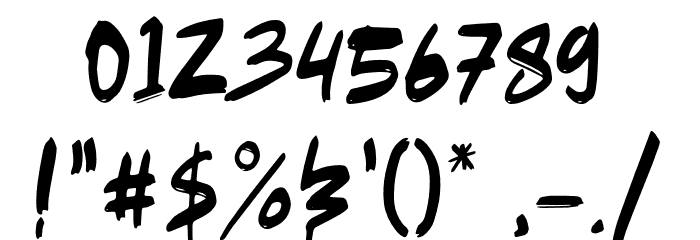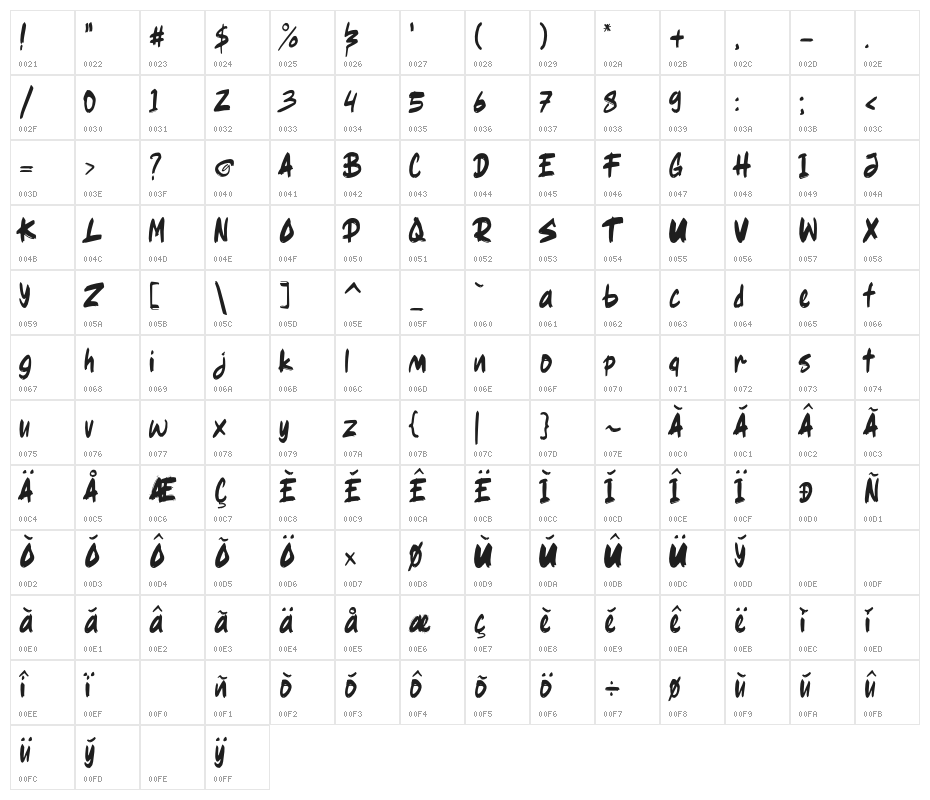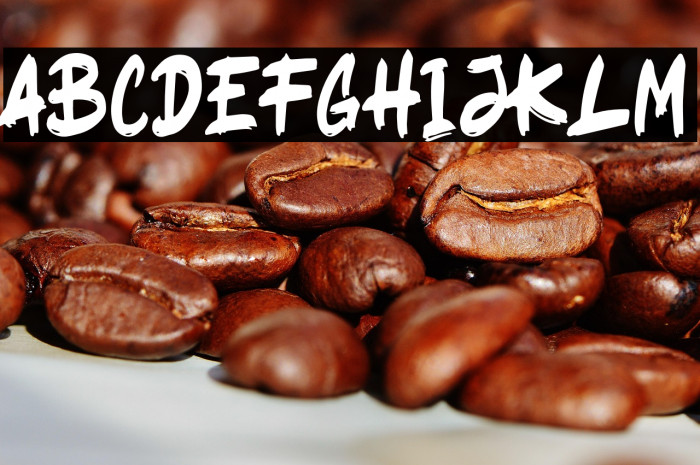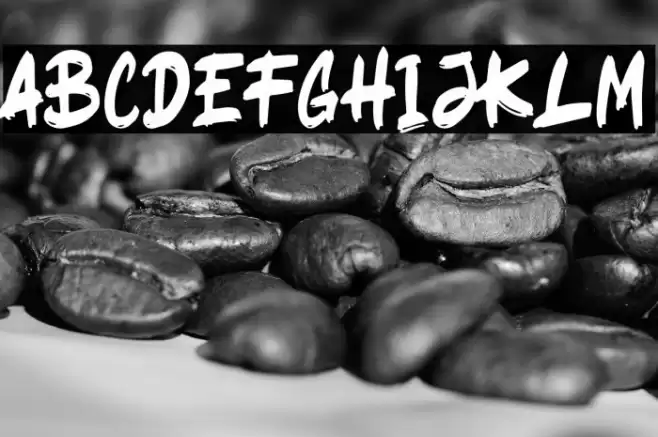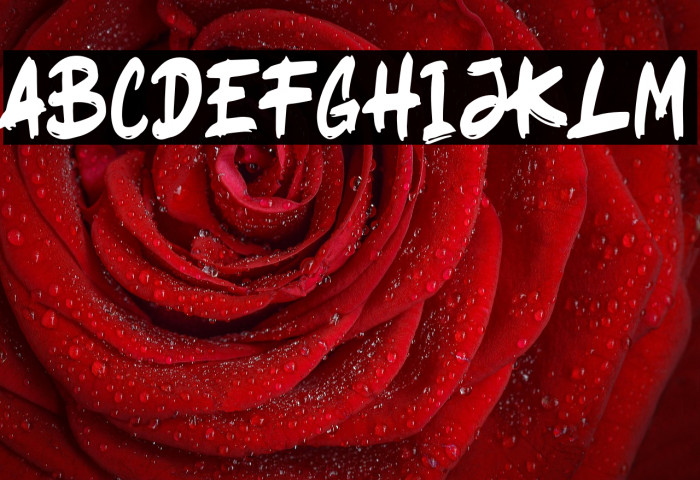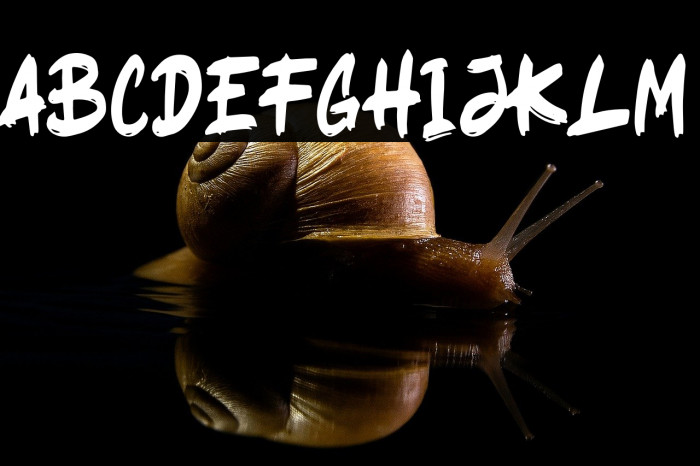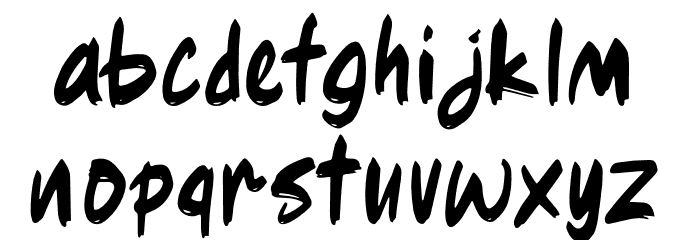
Ragsy Clean Font
Ragsy Clean Description
This font features a bold and dynamic handwritten style, characterized by its thick strokes and energetic flow. The letters have a slightly irregular baseline, giving it a casual and spontaneous feel. The uppercase and lowercase letters maintain a consistent style, with the uppercase being slightly more pronounced. Numbers and special characters are designed to match the overall aesthetic, ensuring a cohesive look across all text elements. The font's brush-like texture adds a touch of creativity and artistic flair, making it suitable for projects that require a personal and informal touch.